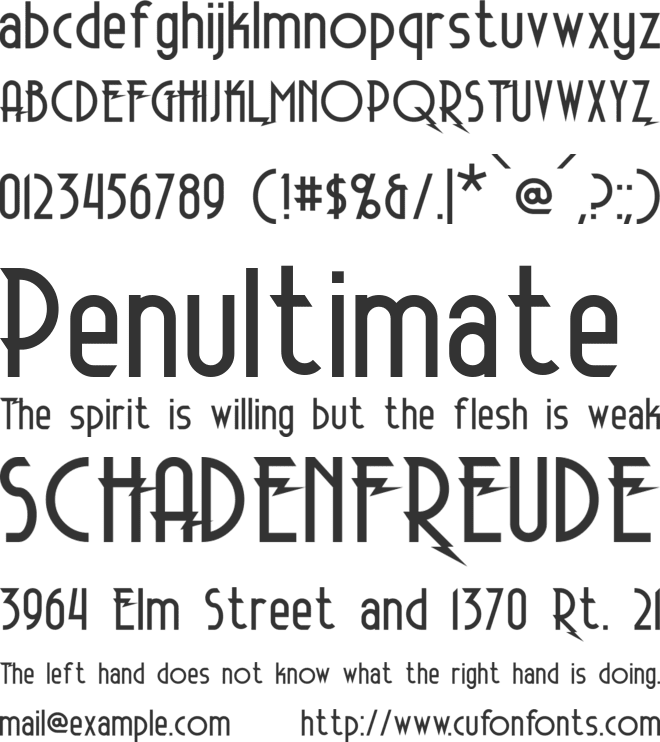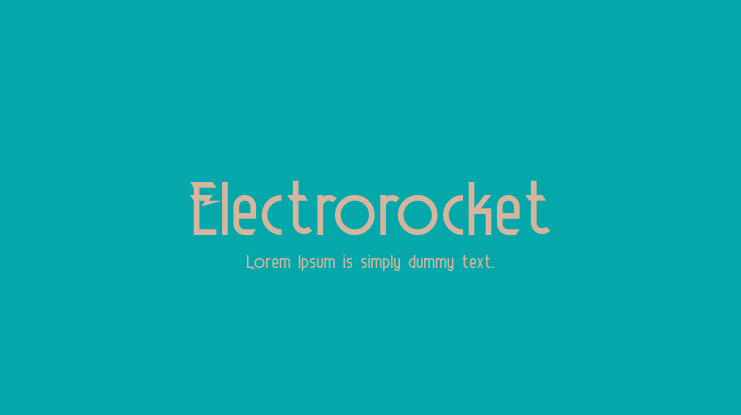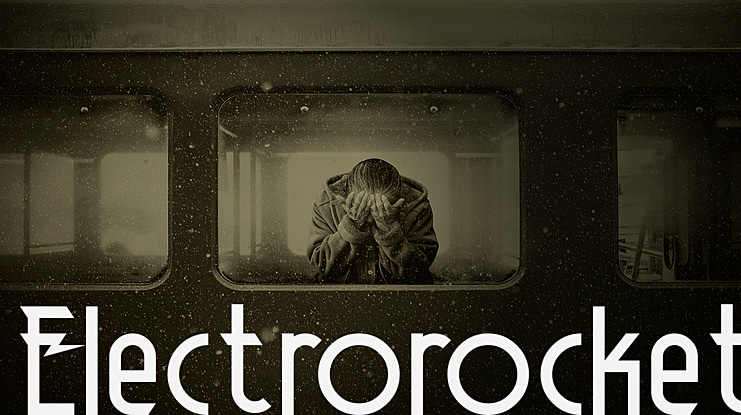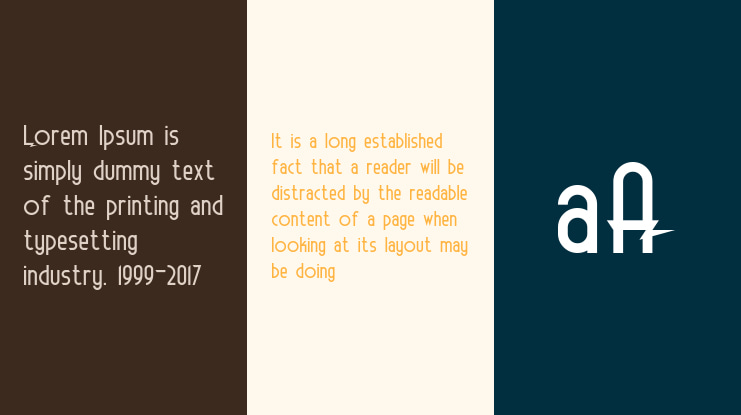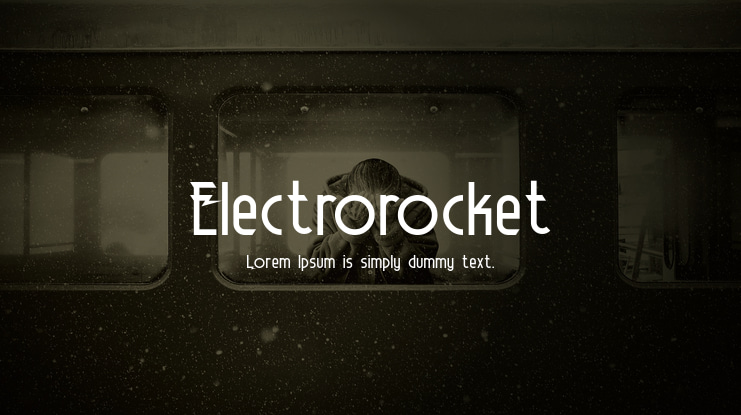
Electrorocket Font Family
Neale Davidson
Electrorocket is an art-deco font based loosely on Disney’s The Rocketeer title logo, featuring some lightning flourishes on some of the capital glyphs. Includes full alphabet, accent characters, and Euro. Includes bold and italic versions.